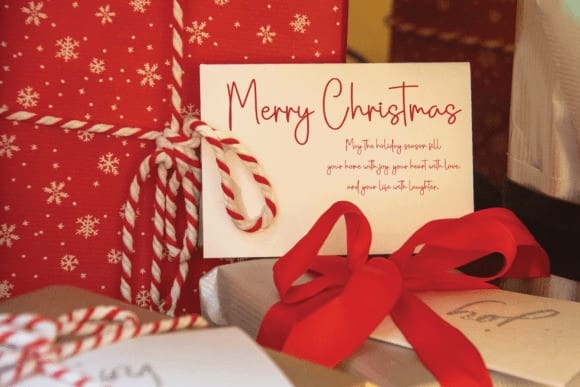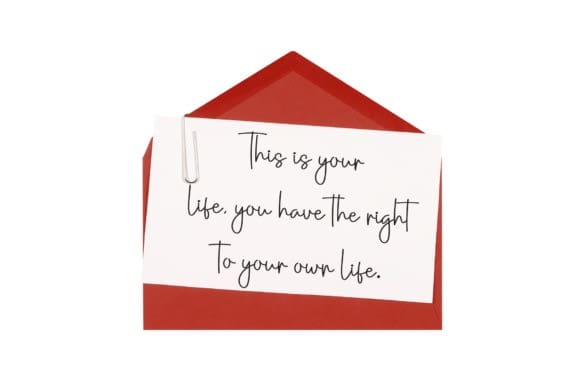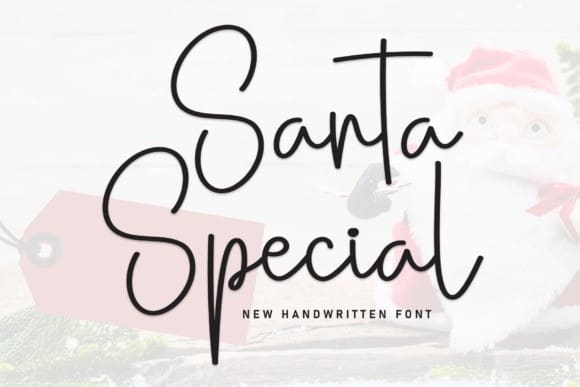
Santa Special Font
Santa Special Font is an adorable handwritten font. No matter the topic, this font will be an incredible asset to your fonts’ library, as it has the potential to elevate any creation.